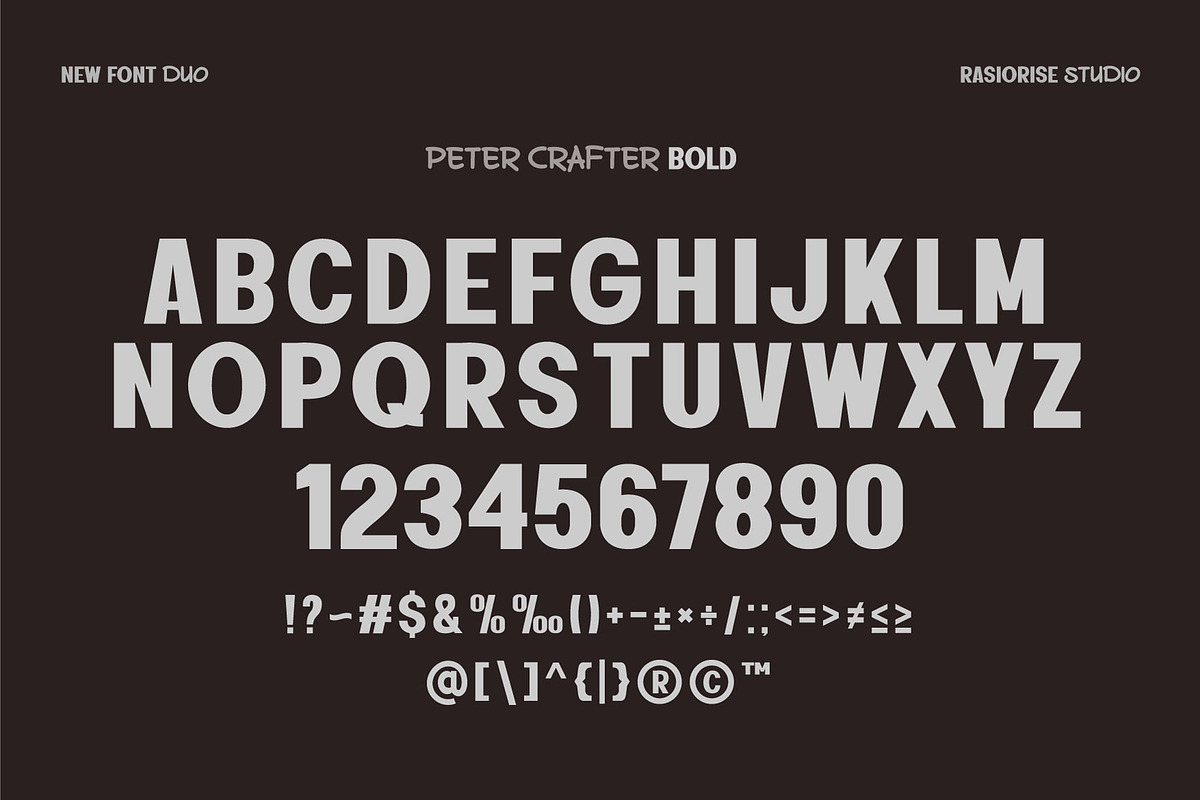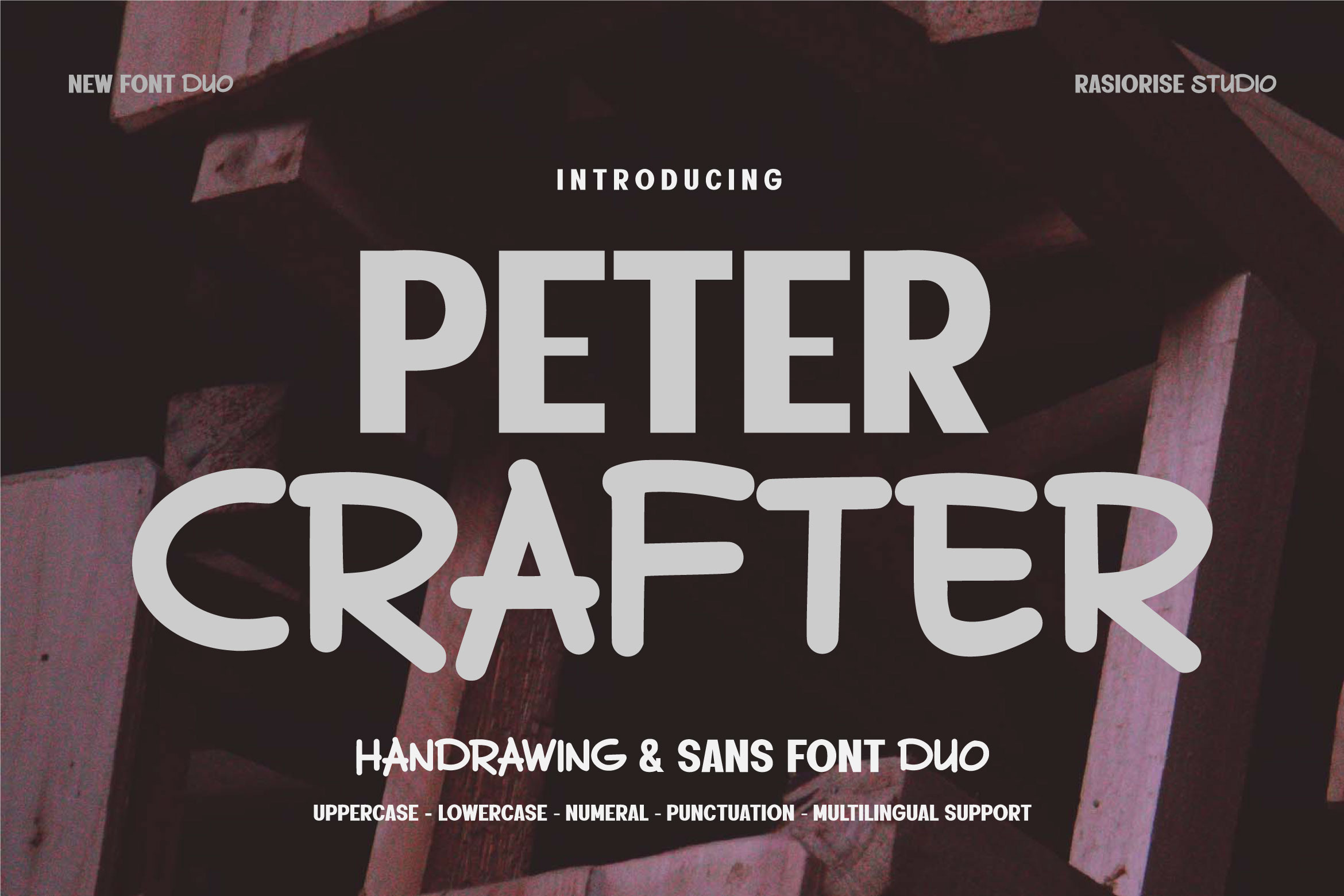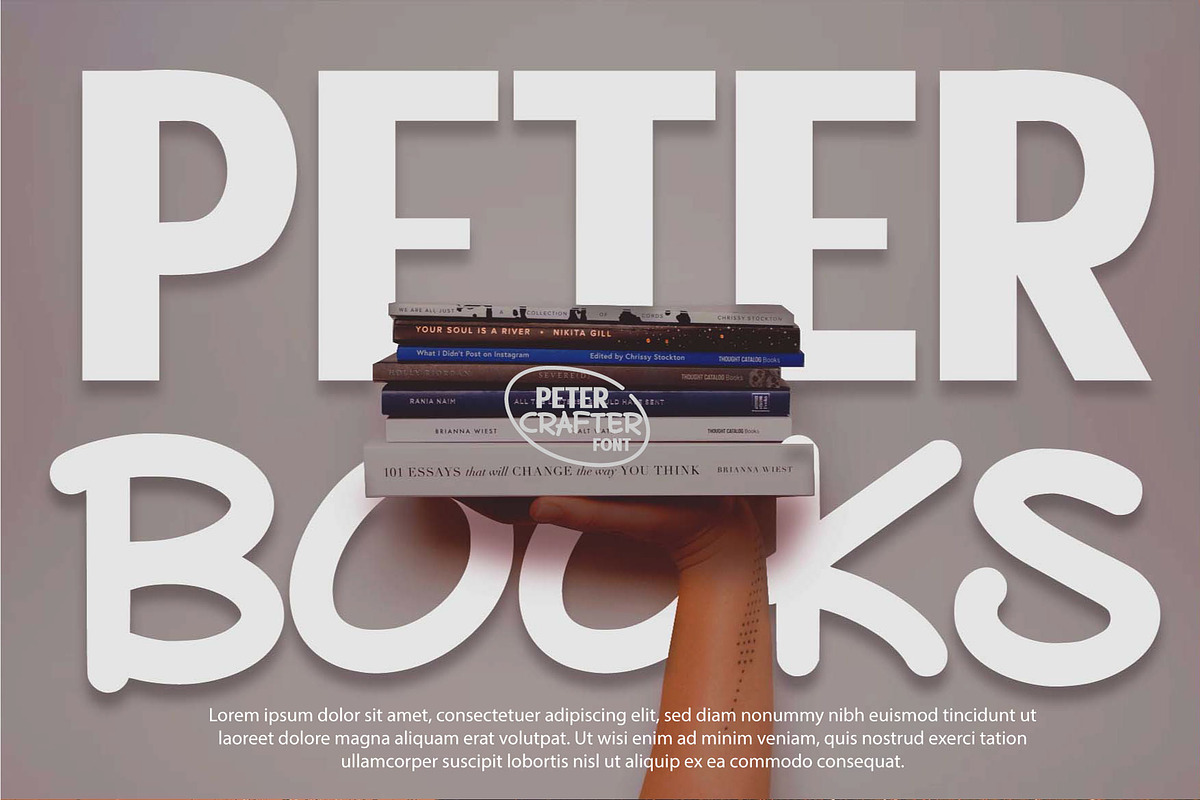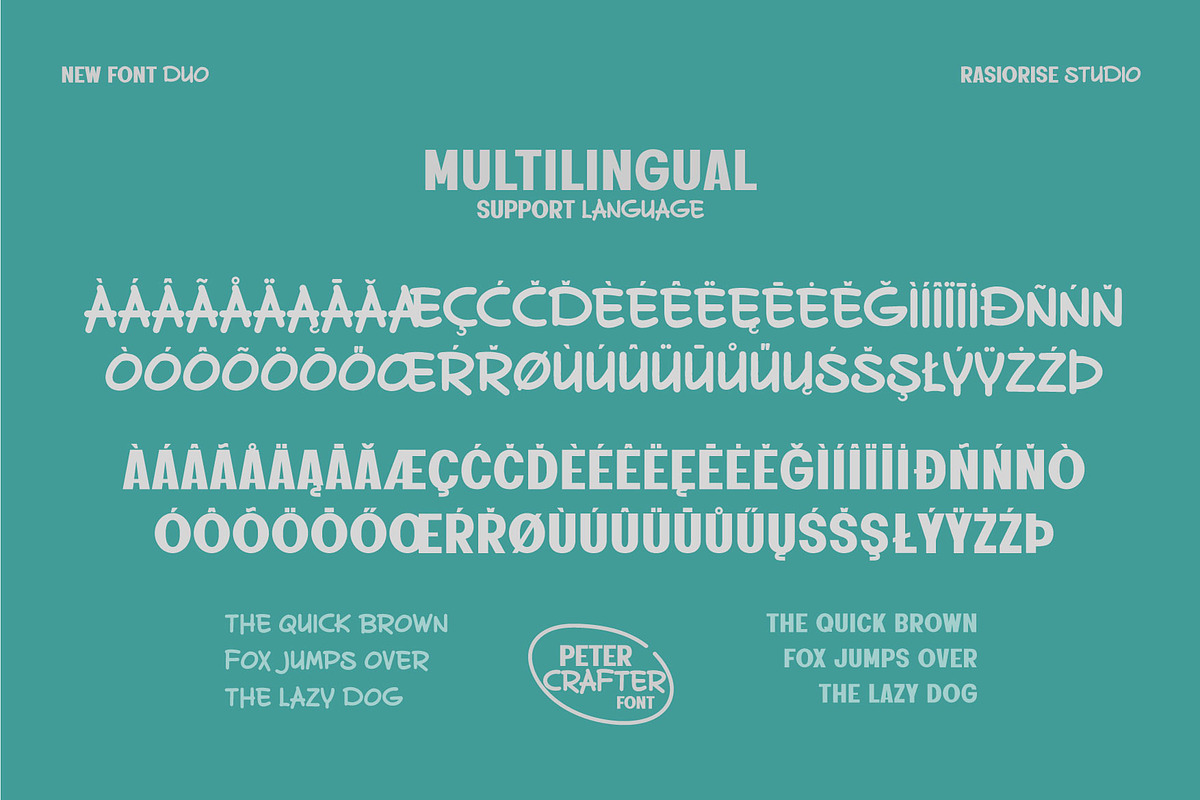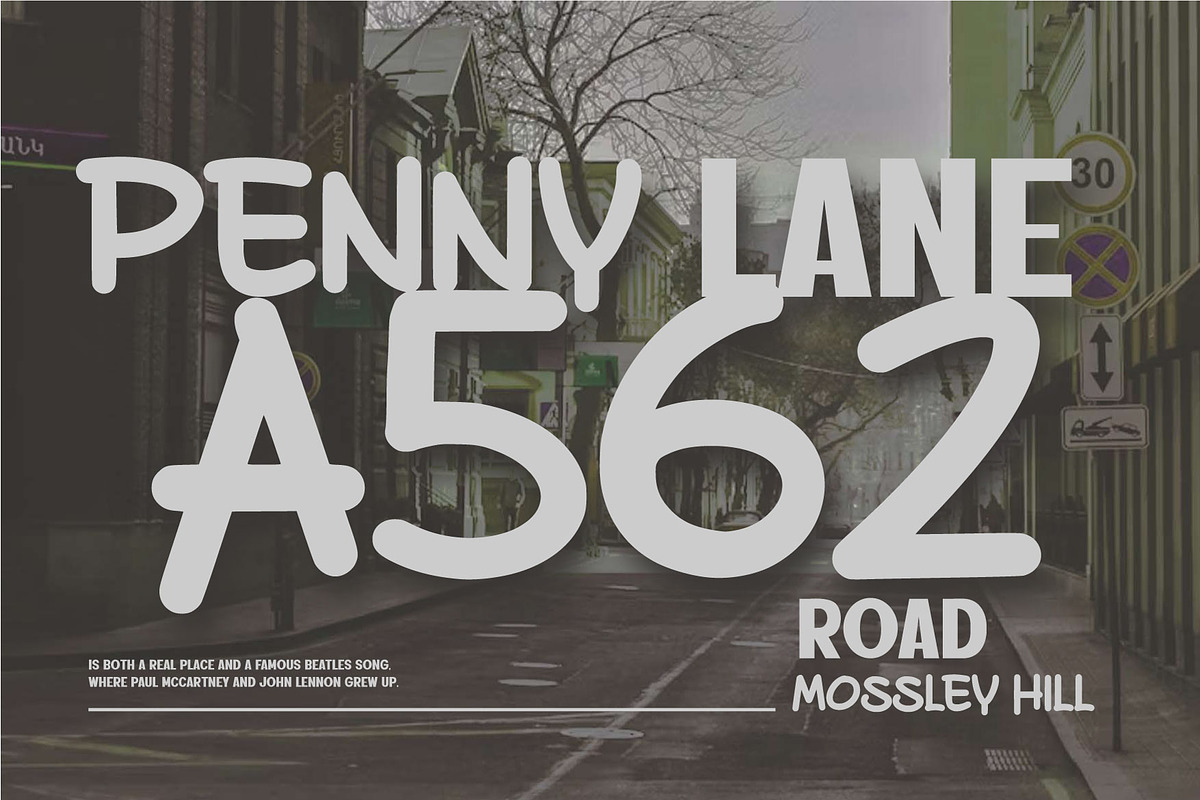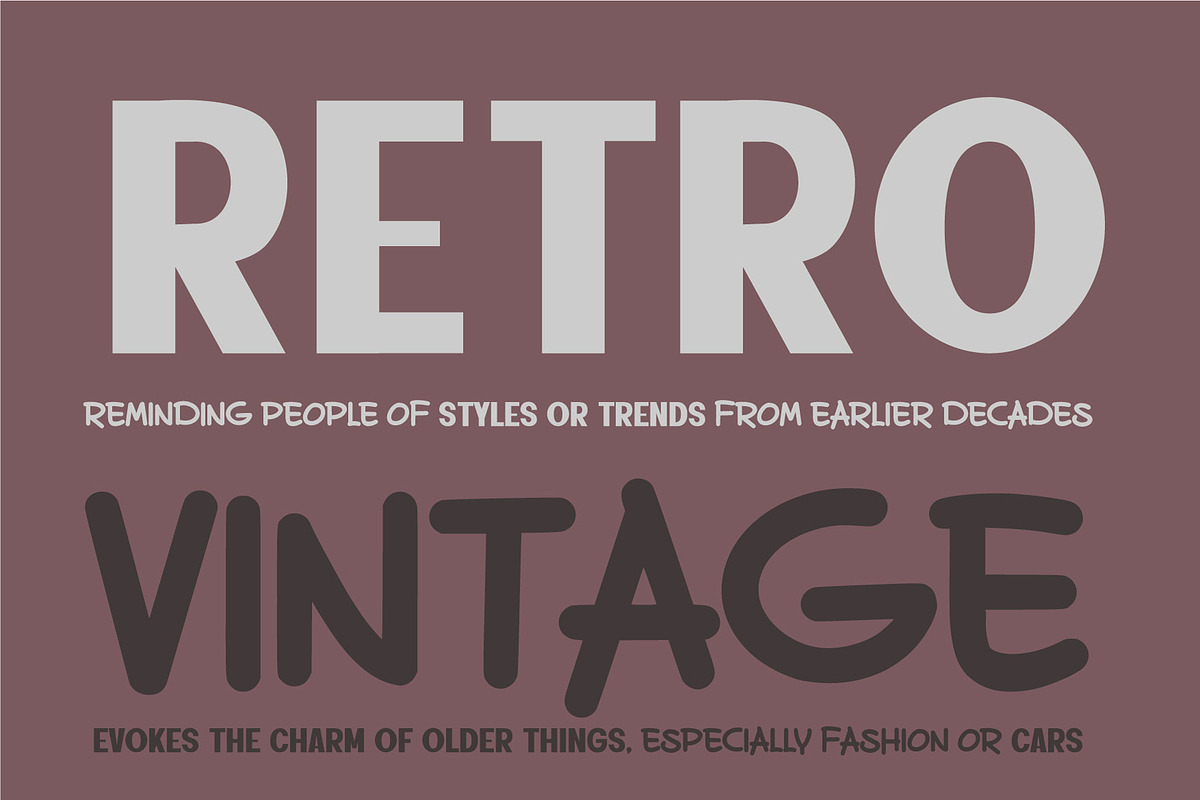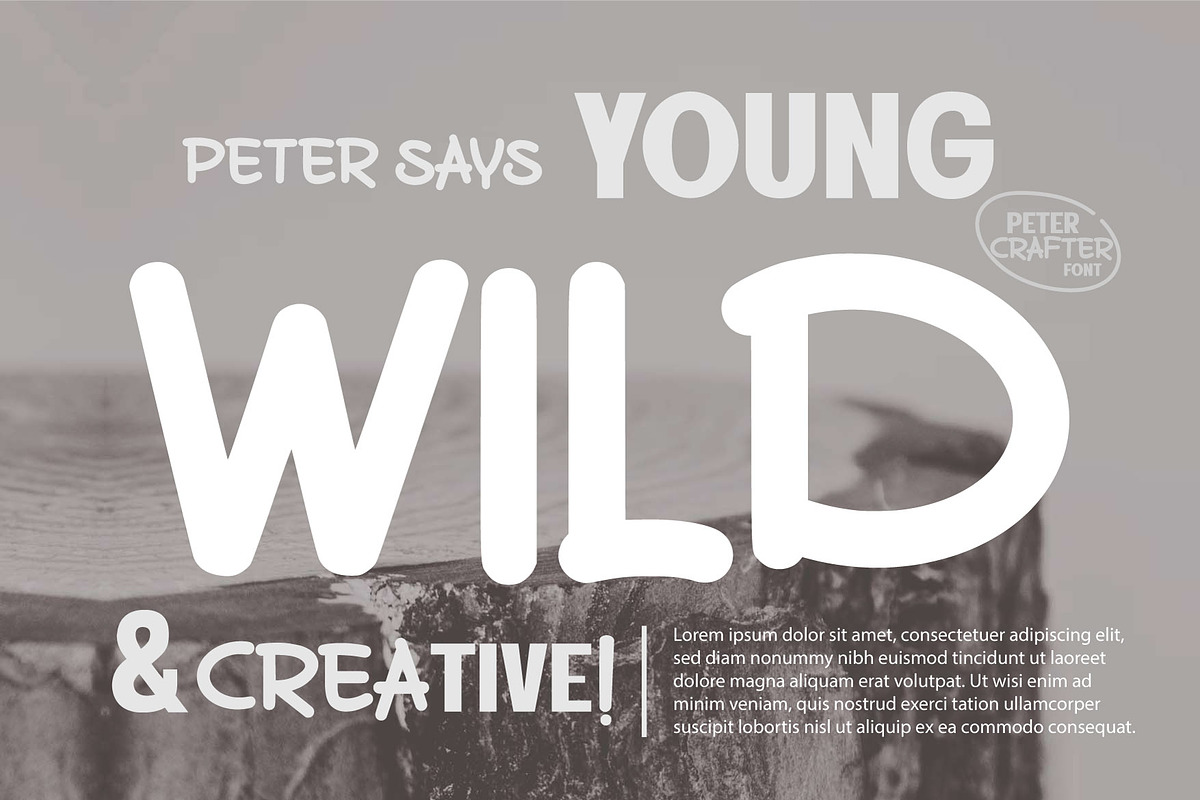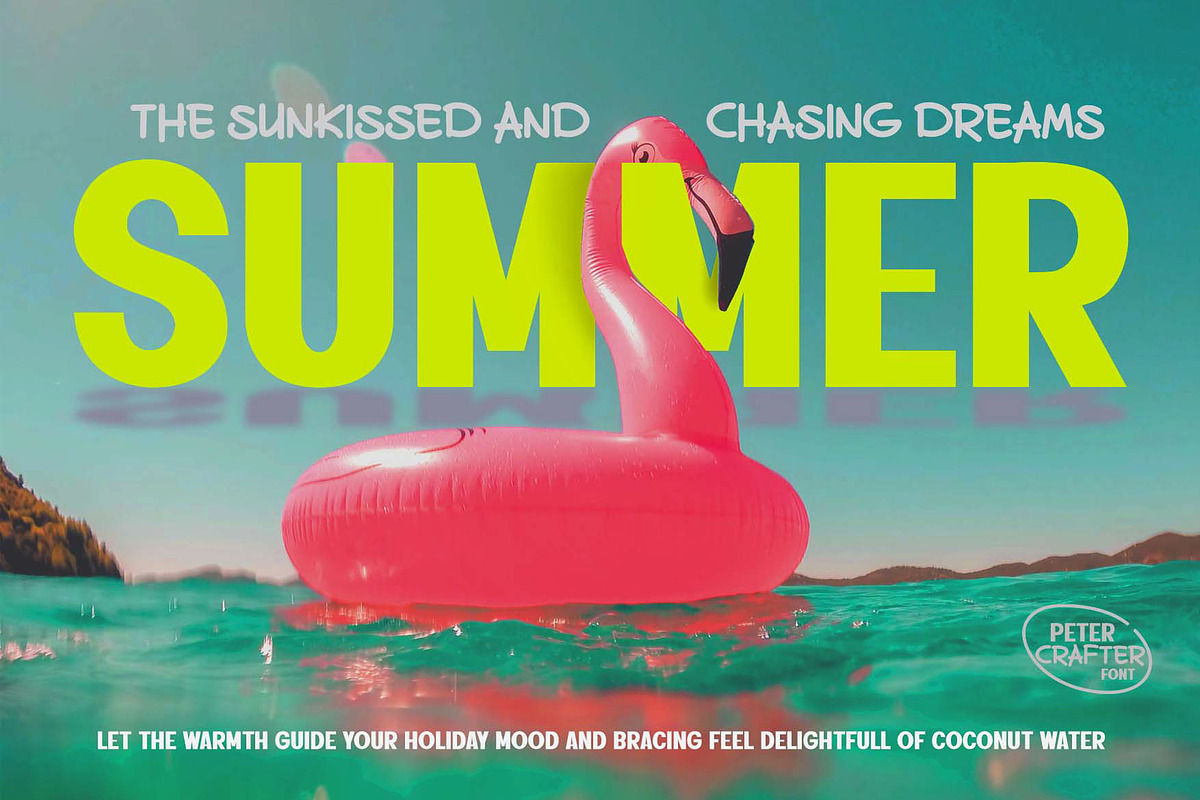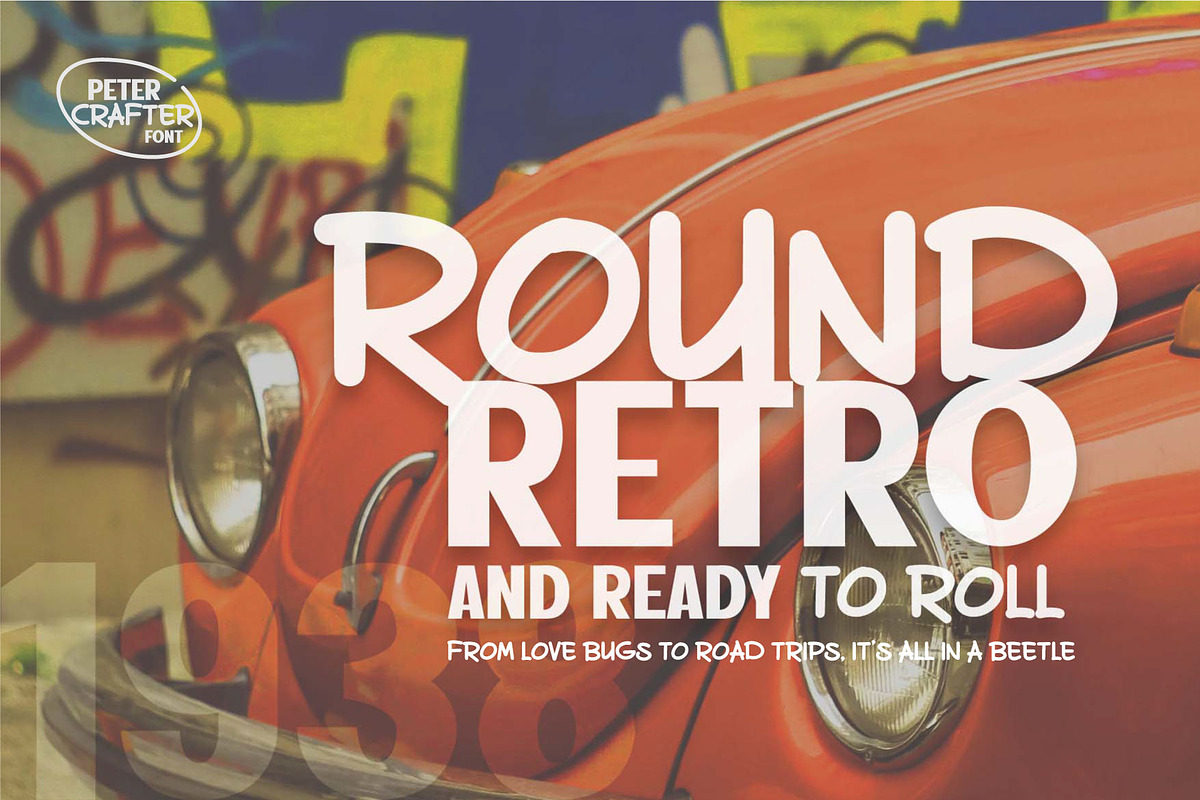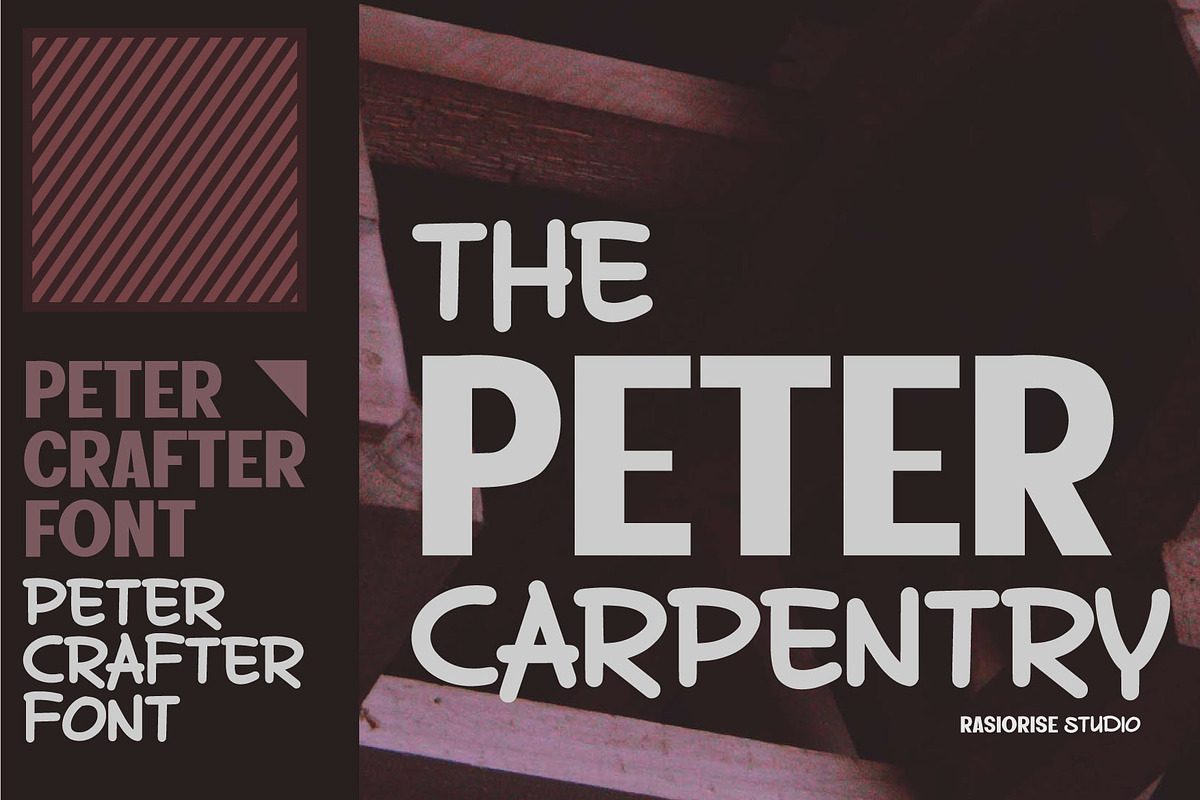
Peter Crafter a Font Duo
Hello Everyone! Peter Crafter has been released for those of you who are looking for dynamic duo font that combines handrawn font and sans-serif styles. A playful handwritten (Regular) font that combines with the Bold Sans-serif (Bold) style strong presence. With easy-to-read character font for your project, also you can easily create a great and stand-out for Logos, Headline, packaging, apparel, Book Cover and social media graphic. Unleash your creativity with Peter Crafter Font.
Peter Crafter Font is perfect for Comic, Poster, Price Info, Logotype, Book Cover, Gift Cards, Greeting Cards, Packaging Labels, Magazines, or any type of advertising purpose.